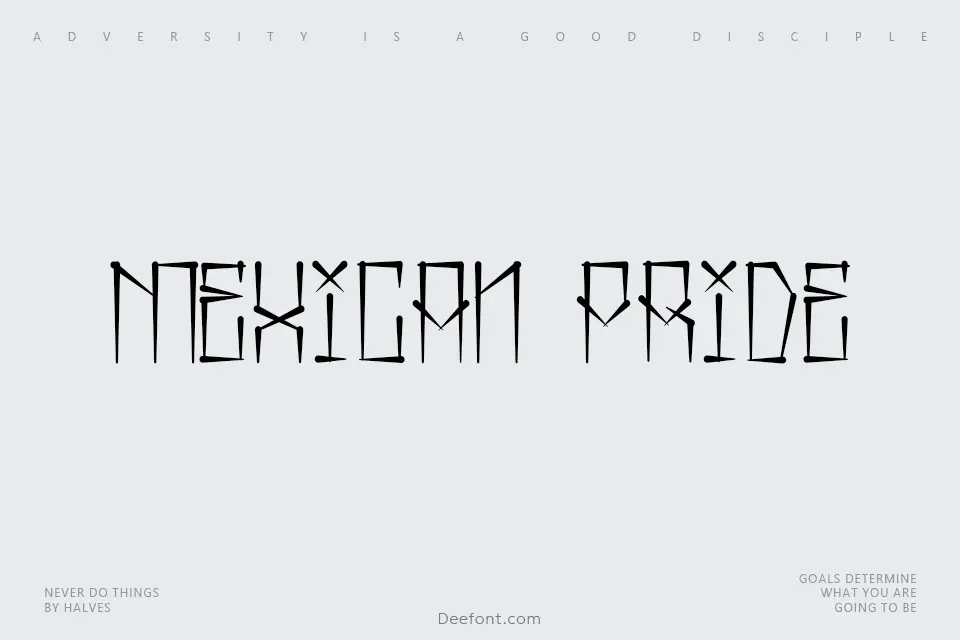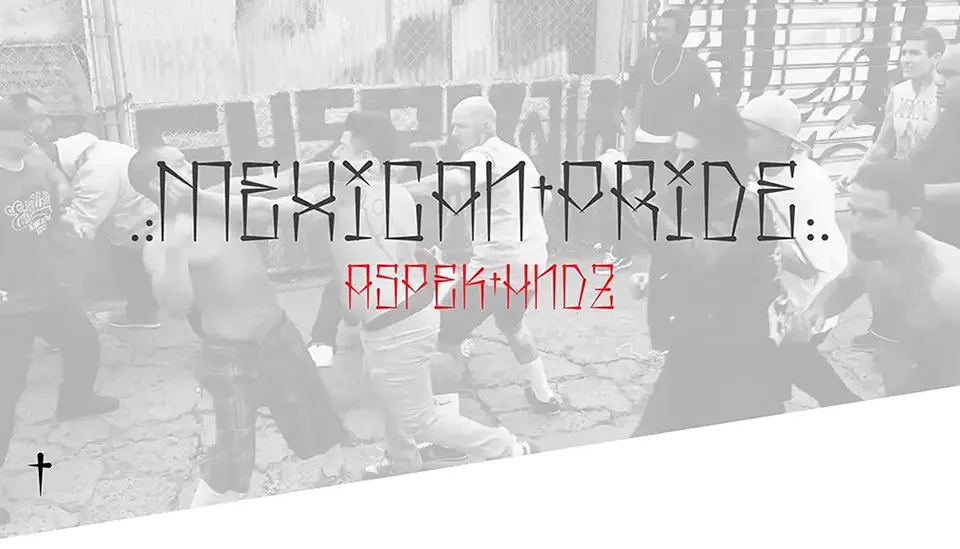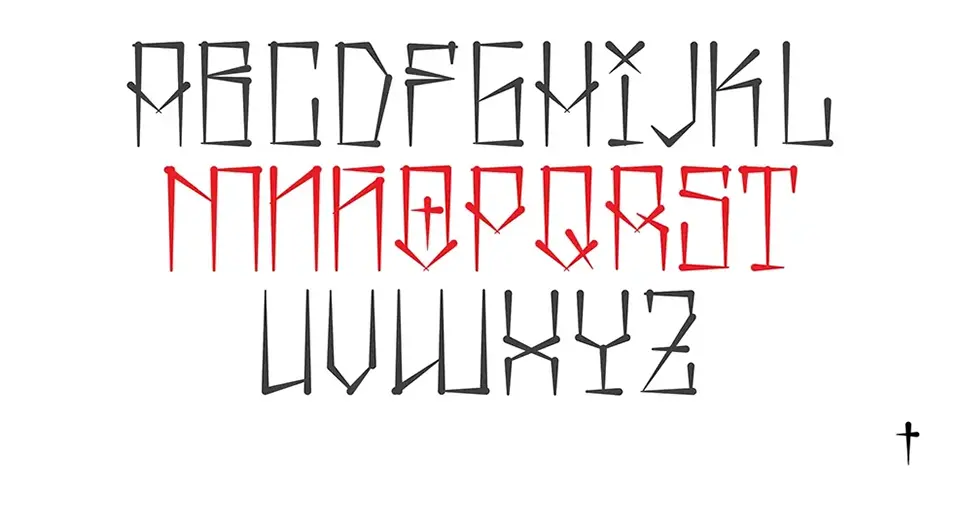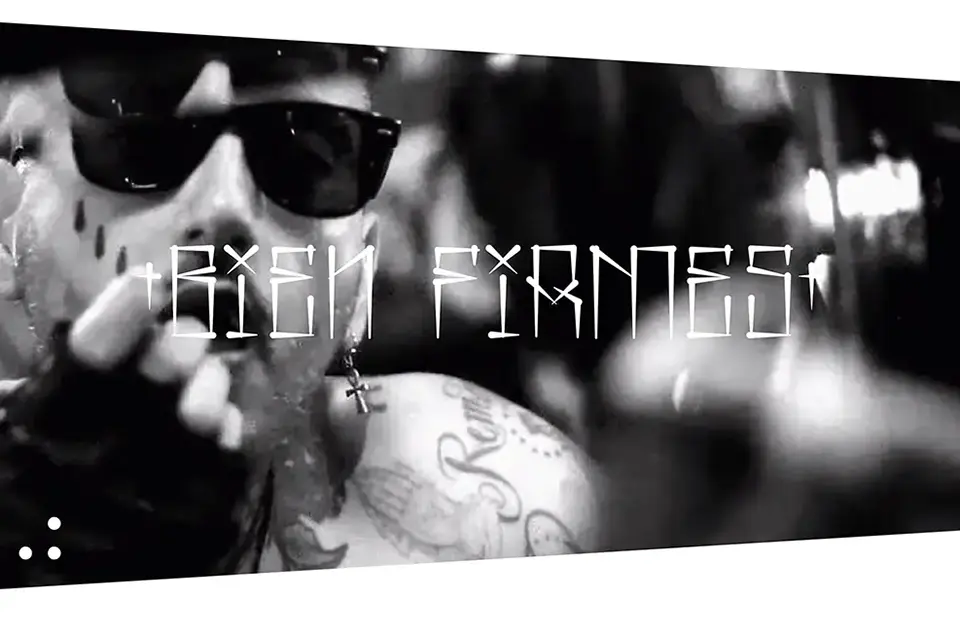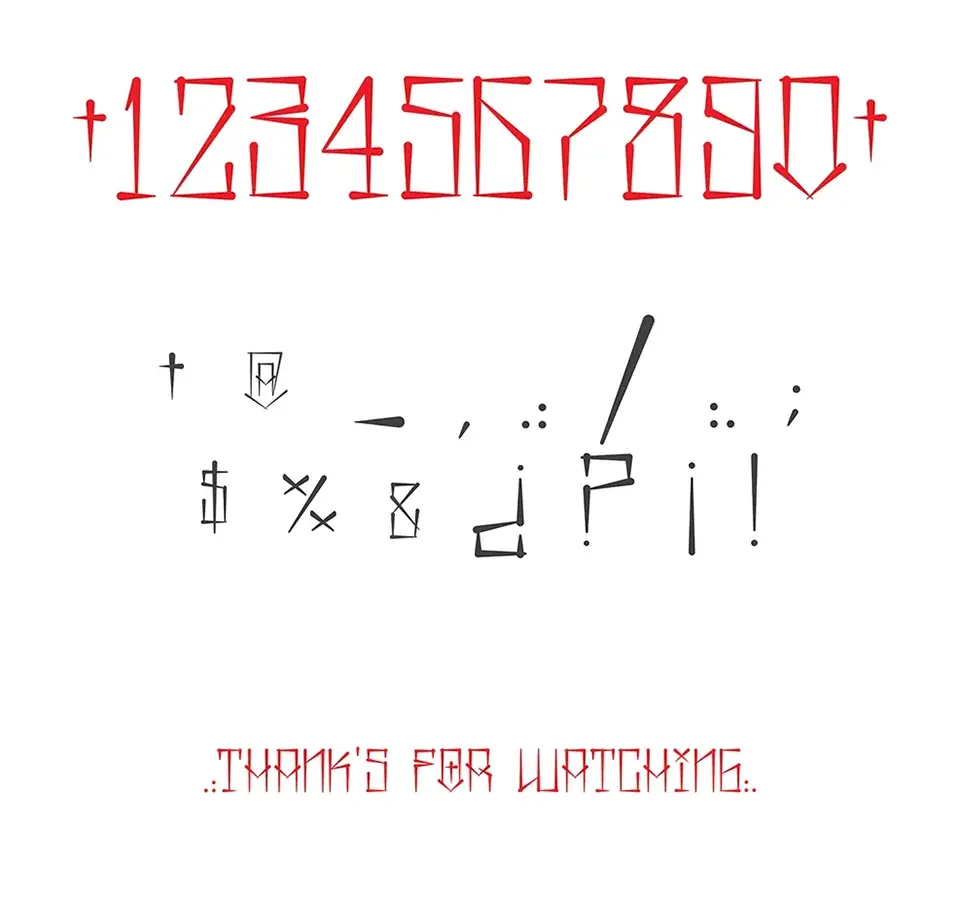
Mexican Pride Font
Mexican Pride is a vibrant and bold typeface inspired by Mexican street culture and cholismo aesthetics. Featuring intricate patterns and distinctive graffiti-style characters, this Mexican Pride font perfectly captures the passion and energy of Mexican artistic expression. Ideal for posters, product packaging, flyers, and social media graphics, it brings authentic cultural flair to creative projects while celebrating Mexico’s rich heritage and artistic traditions.